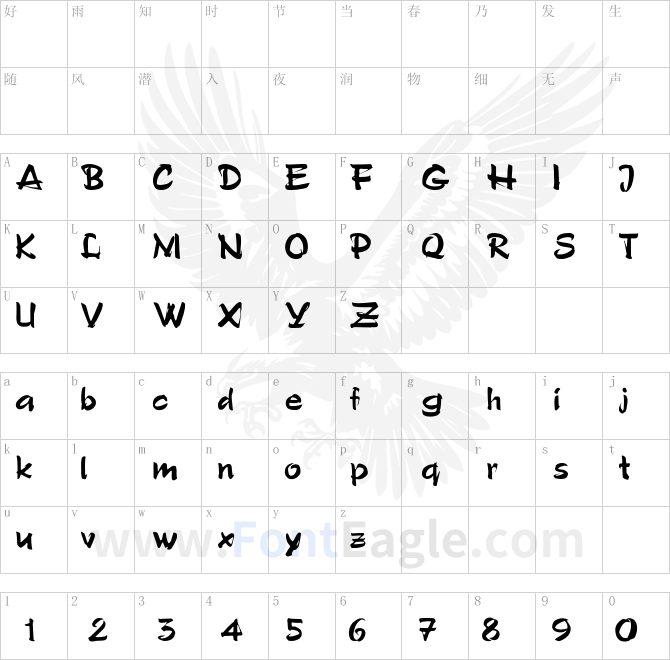
PoloSemiScript-Normal is a great font, widely used in graphic design, single-page menu design, poster design and other fields, and is deeply loved by designers.PoloSemiScript-Normal download.